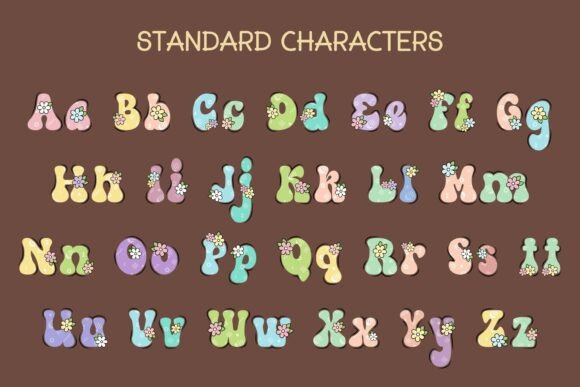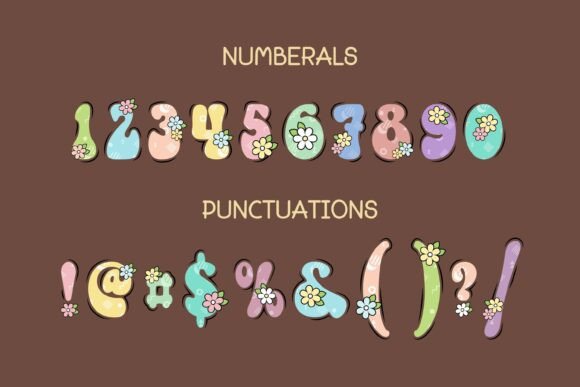
Bringing Back the Groove: A Deep Dive into the Groovy Bloom Font
I’ll never forget the time I was working on a project for a client who wanted a retro-themed invitation for a 70s-style disco party. I was struggling to find the perfect font that captured the essence of that era – something that was playful, fun, and full of personality. That’s when I stumbled upon the Groovy Bloom Font, and it instantly brought back the groove!
This charming typeface features chunky bubble letters decorated with cute pastel flowers and fun geometric details that scream 1970s chic. Each character is carefully designed with soft colors, floral accents, and a hand-drawn shadow effect that makes your text stand out beautifully. In this article, I’ll share my experience with the Groovy Bloom Font, its features, and how to make the most of it in your designs.
- ✨ The unique blend of pastel colors and floral accents gives it a one-of-a-kind look that’s perfect for retro-themed designs.
- ✅ The font is incredibly versatile and can be used for a wide range of projects, from invitations and posters to social media graphics and more.
- 🎉 The hand-drawn shadow effect adds a level of depth and dimension to your text that’s hard to achieve with other fonts.
- 👍 The font is easy to read, even at smaller sizes, making it perfect for body text or captions.
While the Groovy Bloom Font is amazing, there are a few things to keep in mind:
- ⚠️ The font can be a bit overpowering if you’re not careful with the size and color palette. Make sure to balance it with plenty of white space and neutral backgrounds.
- 🤔 Some characters, like the lowercase letters, can be a bit tricky to read if you’re not used to the font’s unique style.
The Designer Inspiration
The Groovy Bloom Font was inspired by the iconic designs of the 1970s, a time of great creativity and experimentation in the world of art and design. The font’s creator was inspired by the era’s love of bold colors, playful patterns, and funky typography. The result is a font that’s equal parts nostalgic and modern, perfect for designers who want to add a touch of retro flair to their work.
Q: What makes the Groovy Bloom Font so special?
A: The Groovy Bloom Font is special because of its unique blend of pastel colors, floral accents, and hand-drawn shadow effects. This combination gives it a one-of-a-kind look that’s perfect for retro-themed designs.
Q: Is the Groovy Bloom Font easy to read?
A: Yes, the Groovy Bloom Font is surprisingly easy to read, even at smaller sizes. However, it’s best to use it for headlines or titles rather than body text.